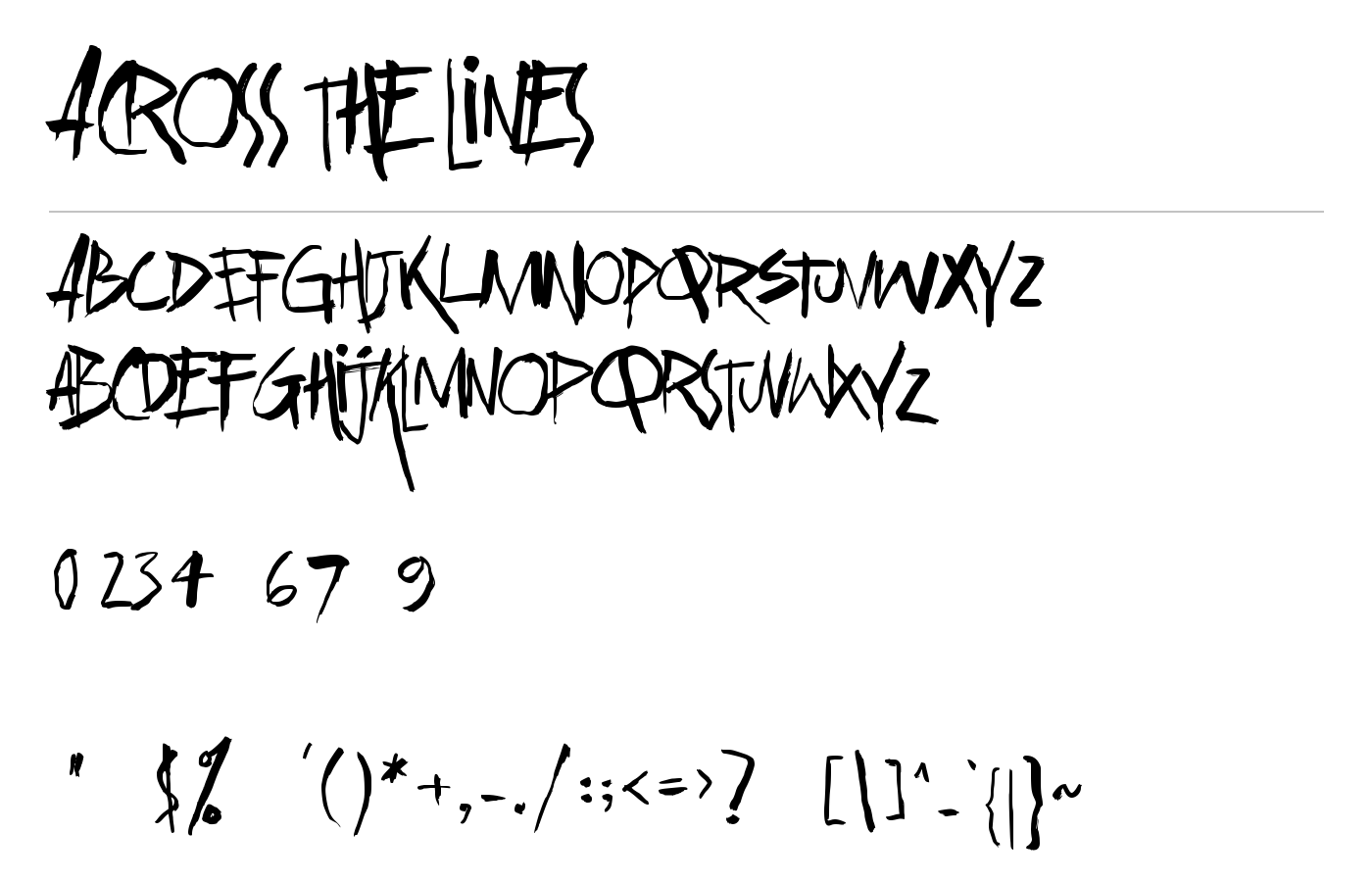
Across the Lines is an edgy, hand-drawn sans serif font with a bold, irregular stroke that feels raw and expressive. Its tall, narrow letterforms with sharp angles and varied line thicknesses give it a street-art or graffiti vibe, perfect for adding an urban, artistic touch. This font works well for creative headlines, posters, and branding that wants to convey energy and individuality.
Across the lines Font
About Across the lines Font